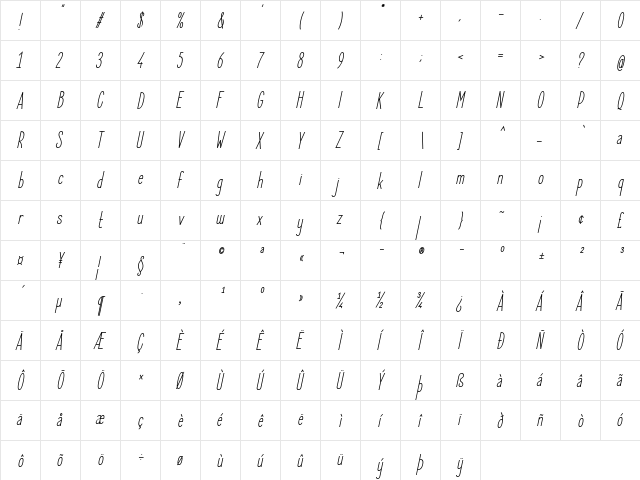
Elegant Sans Italic
Design Context for Elegant Sans Typeface
Elegant Sans offers clean, dependable letterforms without strong stylistic allegiance, making it a practical choice for designers who need flexibility. The dynamic lean of this cut emphasises speed and emphasis in any layout.
Pro Tip: Try Elegant Sans for annotation and caption copy alongside an upright companion — the contrast in angle creates a dynamic but ordered typographic system.